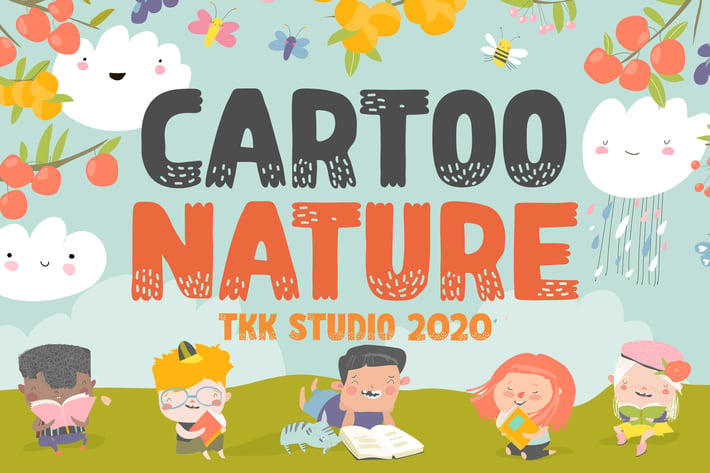
Kids Font - Cartoo Nature
Cartoo Nature - Kids Cartoon Font
Cartoo Nature is a playful nature-themed kids display font designed with chunky proportions, bold stems, and fun geometric rhythm. Featuring rounded terminals and uneven letter heights, this cartoon-style typeface is perfect for projects needing an energetic, youthful personality. Its handcrafted vibe adds an organic, outdoor charm—ideal for jungle books, school posters, or playful eco-campaigns.
Whether you’re working on a forest-themed animation, a zoo event flyer, or a kids YouTube thumbnail, Cartoo Nature brings that perfect balance of visual punch and storytelling warmth.
Designed for vibrant storytelling and youthful education, Cartoo Nature is your go-to font for children’s branding, colorful apps, editorial layouts, or wildlife-themed social campaigns. Its exaggerated letterforms spark curiosity and keep attention—making it a smart choice for brands that cater to kids, nature lovers, or eco-conscious families. Use it for learning games, printable worksheets, kids music festival posters, or even animated intros.
Key Features :
✅ Playful and Bold: Perfect for headlines that need character and fun.
✅ Nature-Inspired: Visual storytelling meets jungle adventure vibes.
✅ Easy to Read: Great for young audiences or learning-based content.
✅ Versatile Use: Perfect for posters, packaging, app UIs, signage, and more.
Don’t let your next kid-focused design feel flat—Cartoo Nature gives your message voice, movement, and forest-fueled fun! Start using it today and watch your creative projects grow wild with imagination and impact.